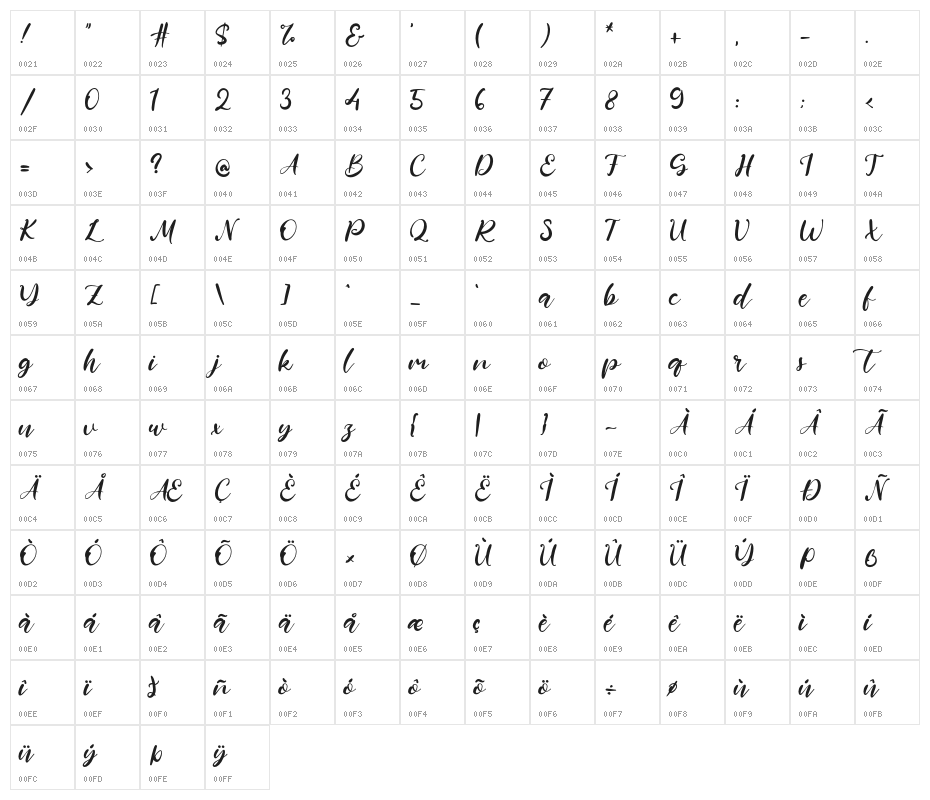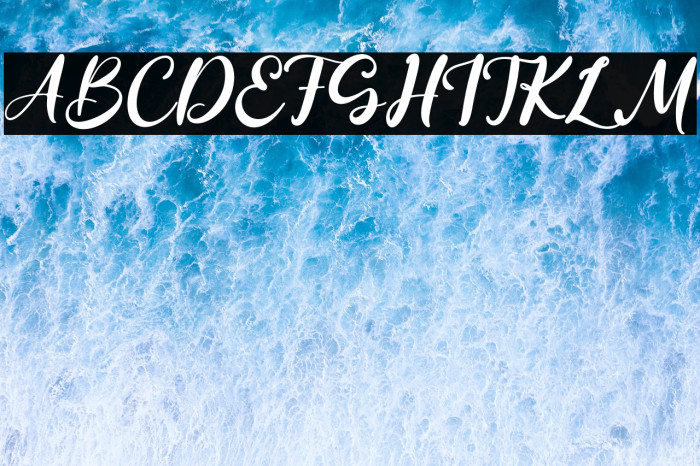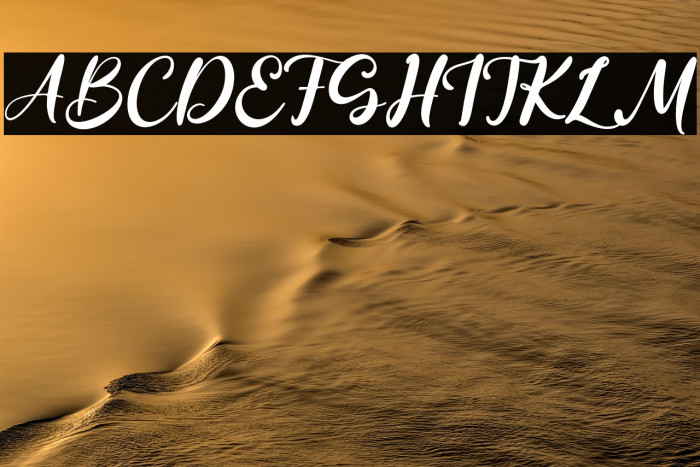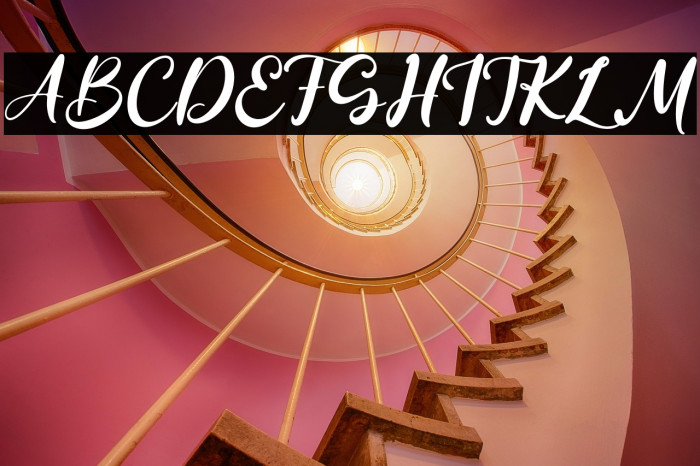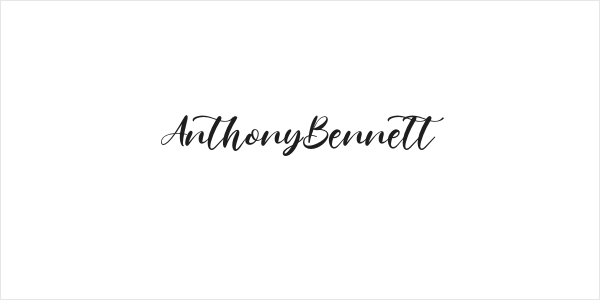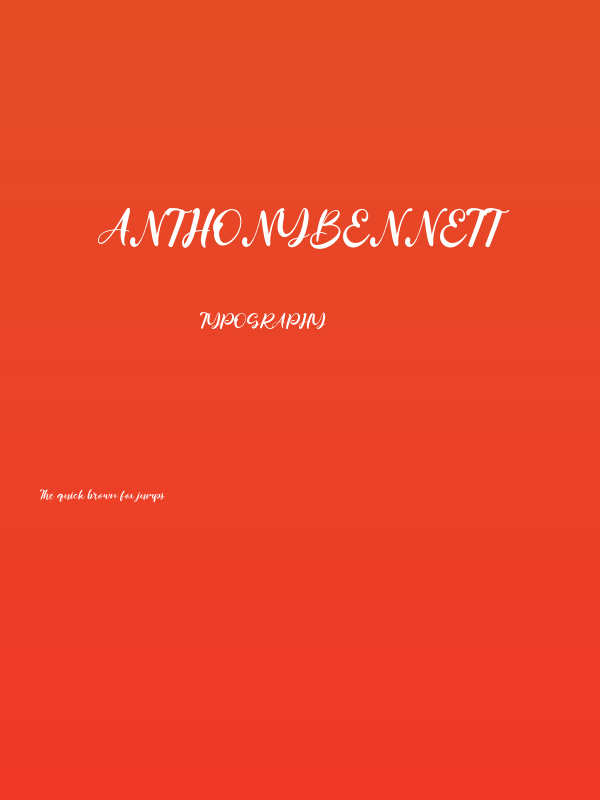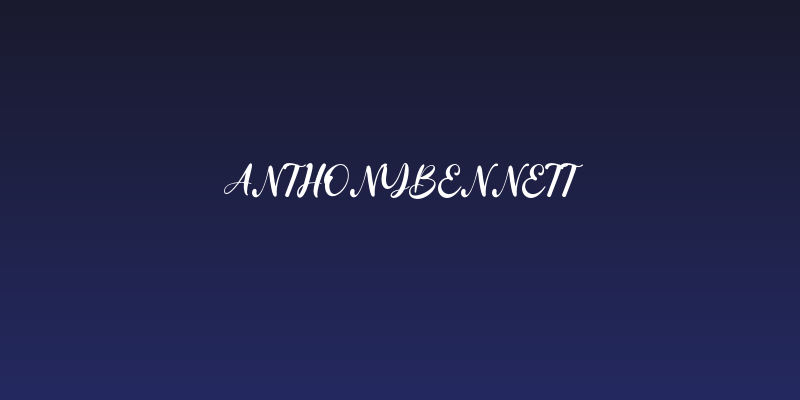
AnthonyBennett Font
AnthonyBennett Description
This font features a flowing, cursive style that exudes elegance and sophistication. The characters are interconnected with smooth, sweeping strokes, giving it a handwritten appearance. The uppercase letters are bold and prominent, while the lowercase letters maintain a consistent flow, enhancing readability. The numerals and special characters are designed to match the overall aesthetic, with a playful yet refined touch. The font's design is perfect for adding a personal, artistic flair to any project, making it ideal for invitations, branding, and creative designs.
| Overall Style | Elegant, Artistic |
| Use Case | Headlines, Logos, Invitations |
| Proposed Projects | Ideal for wedding invitations, branding, greeting cards, and artistic projects. |